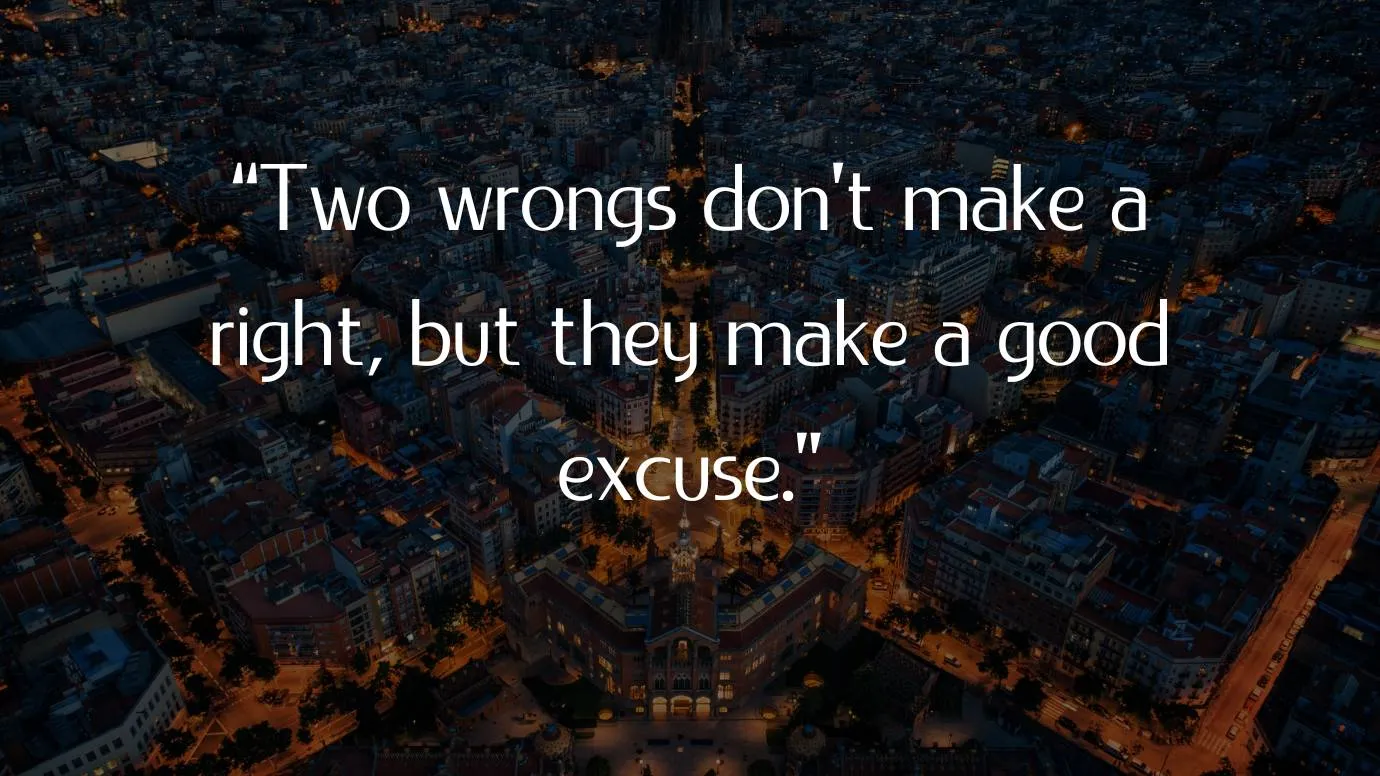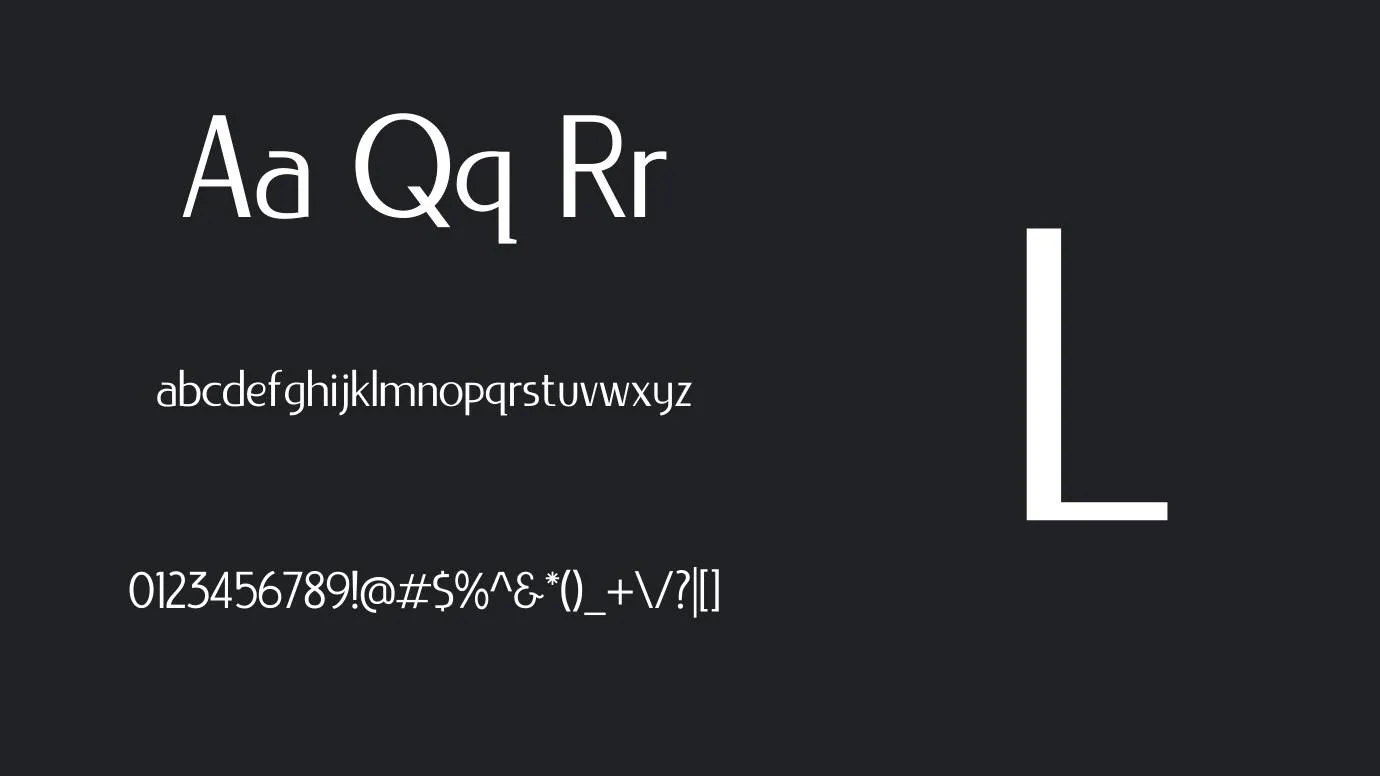
Lieur Font is a refined and elegant typeface that blends modern aesthetics with a touch of classic charm. Its clean lines and balanced proportions make it highly readable across both print and digital formats.
The font carries a sophisticated feel, making it ideal for branding, editorial layouts, and luxury designs. Lieur Font is a versatile choice for designers seeking a polished and professional typographic style. Download Now